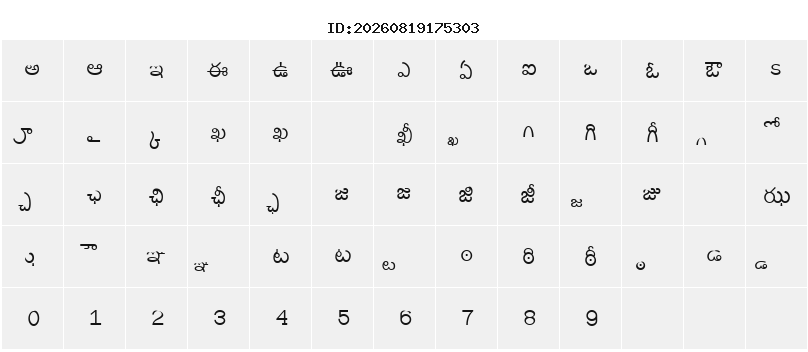
Shree-0908W Preview
• Font Name: Shree-0908W
• Font ID: MITPL : Modular InfoTech --Shree-0908W%%867 1003
• Full Font Name: Shree-0908W Normal
• Version: Version 1.10 2/12/2008
• PostScript Name: Shree-0908W
• Character Count: 217
About Shree-0908W.ttf
Shree-0908W.ttf is a modern, elegant sans-serif font designed for ultimate readability and visual harmony. Perfect for branding, headlines, web design, and print materials.